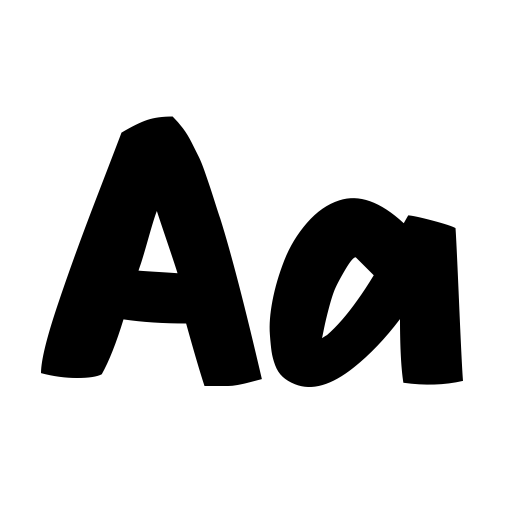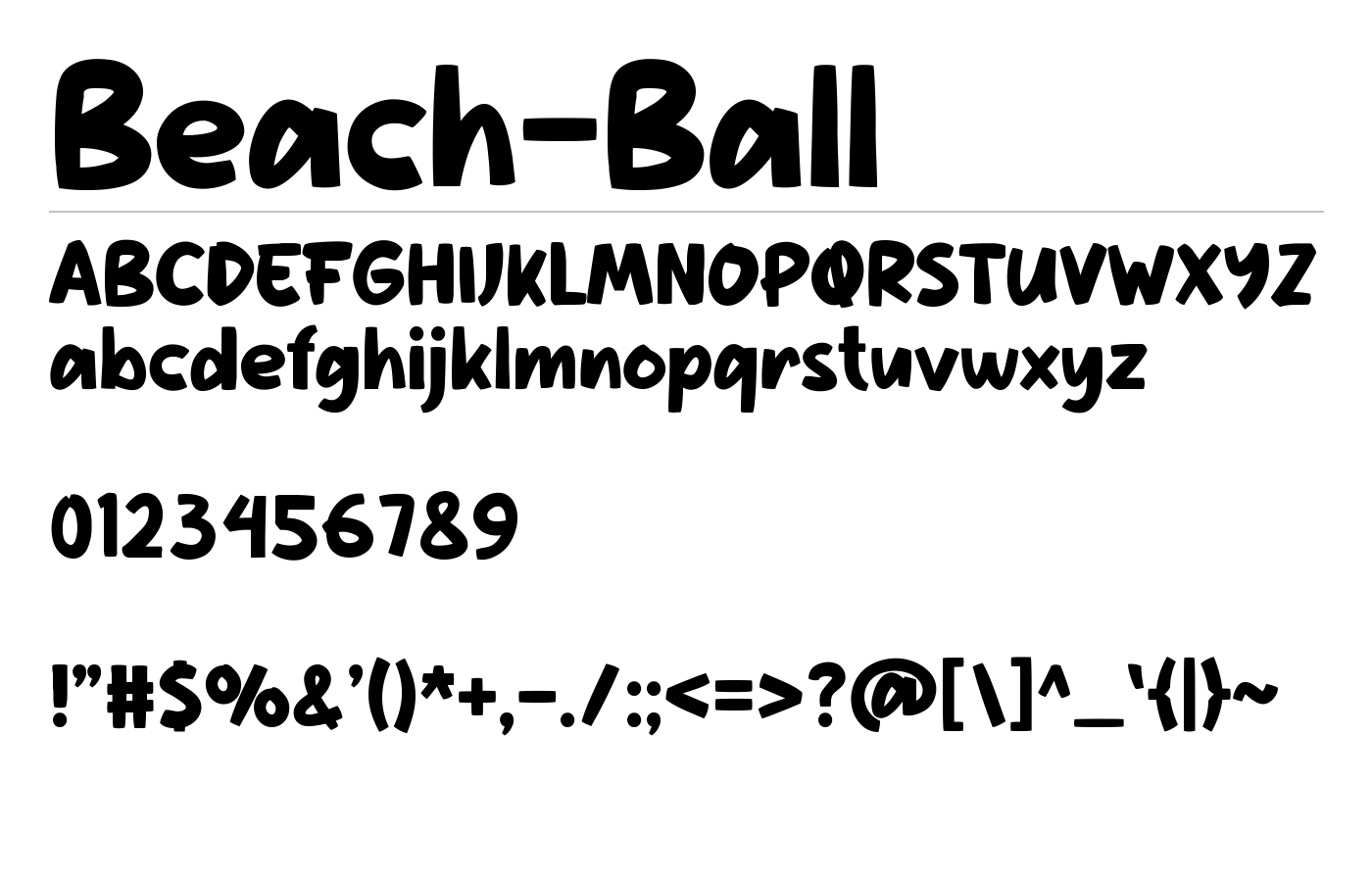
Beach-Ball is a lively sans serif font with a playful, hand-drawn feel characterized by its bold, slightly irregular shapes and rounded edges. Its chunky weight and casual style make it ideal for fun, friendly designs such as children’s books, posters, and signage where a welcoming, informal tone is desired. This font works great in headlines and branding that seek to convey energy, warmth, and approachability.
Beach-Ball Font
About Beach-Ball Font